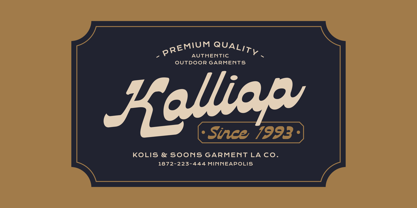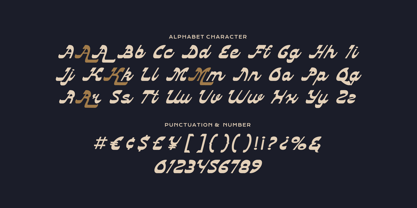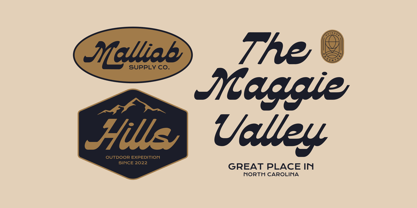
Medusa Allos
Die Schriftfamilie Medusa Allos wurde von Aulia Savira Putri entworfen und von Imoodev veröffentlicht. Medusa Allos enthält 1 Stile.
Medusa Allos is giving off some seriously vintage vibes. Picture a bold, swoopy script that’s kinda like something you’d see on a retro diner sign or an old baseball team’s jersey—there’s a real sense of handcrafted flair.
It was made with the intention of being for logos, headlines, brand identity, signage, packaging, apparel designs—any spot that needs a hit of retro-cool and big-time personality, card for coffee shops trying to nail that retro aesthetic, or maybe for merchandise that wants to channel the golden age of sign painting.
Designer: Aulia Savira Putri